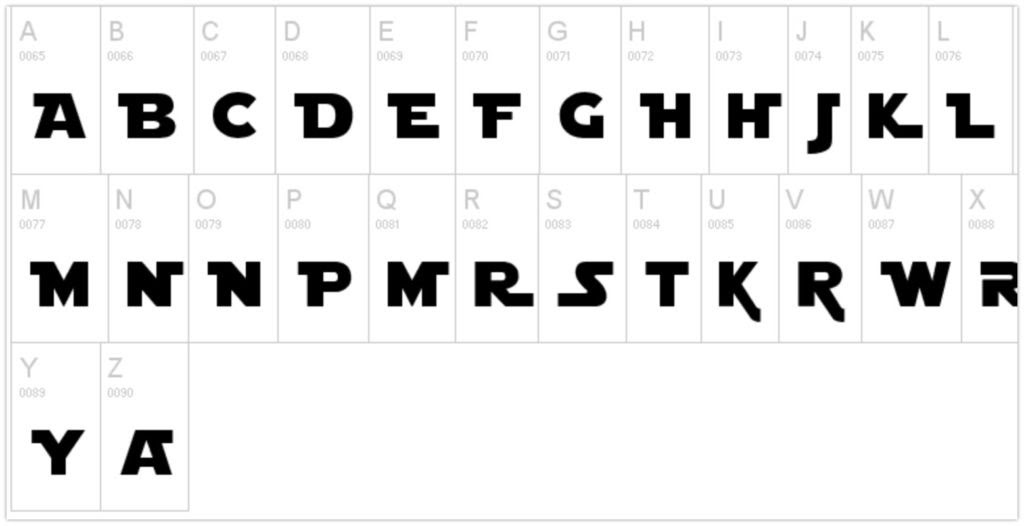
This font is designed by boba fonts. The font is licensed as free.
Star wars fonts and letters.
What font is used in star wars. Others have been created for star wars fans, and there are different styles you can choose from. Star jedi font | dafont.com. Textcraft is a free online text and logo maker, and is also compatible with ipad and android tablets.
You can find versions of star wars themed fonts Simply download it from the link below. The free star wars font is called “star jedi” and was created by boba fonts, run by davide canavero based in.
Please, take a look at the charset tables and the samples below for details. This is an alpha version pending metrics editing becoming possible on fontstruct. The force awakens logo is itc serif gothic heavy, which is a display serif font designed by antonio dispigna & herb lubalin and published by itc.
Star wars is an epic space film series created by george lucas. The font used for star wars: The star wars logo lettering is very similar to a font named star jedi created by boba fonts and you can download it for free here.
Star jedi is a titling (capitals only) font, with a lot of variations and connections. The force awakens and star wars: The star jedi font was designed in a way that the lowercase looks like the uppercase letters, and the uppercase letters are ligature variants instead of regular letters.
The subtitle font appears to be franklin gothic demi condensed, bold, 56 pt, color #e0e7d3 (rgb triplet; Itc serif gothic heavy font on myfonts.com. Rebel agent pda classic is a fontstrut truetype version of a bitmap font peter klassen extracted from briefing screens of the game star wars:
The main problem was my movie format. What font was used in star wars logo and posters? These star wars logo fonts are based upon the official star wars logo typeface.
A logo shortcut, use the @ symbol in star jedi or star jedi hollow to insert the logo in one swipe of your light sabre. Although the original lettering was drawn by hand, later movies switched to digital versions, and the closest font match is franklin demi. Now it's probably good enough to stick with my apple chancery font after all, although i did increase the size of.
Do not miss the best fonts for one of the great classics, star wars. Types of star wars font. Photo (s) by bart solenthaler on flickr.
All six films from the lucas era use the gothic/univers font. Original star wars logo designed by suzy rice. Joe johnson later modified it to the more modern star wars logo we recognize now.
Itc serif gothic heavy font on fonts.com. The free star wars font is called “star jedi” and was created by boba fonts, run by davide canavero. The original star wars font crawl is known as franklin gothic but has become known as 'univers'.
The actual title logo that appears in the film was designed by suzy rice. Assorted star wars fonts that you can download and use for your projects. The font used for star wars:
Let the fonts accompany you! Star jedi is the font used in the movie star wars. All six films from the lucas era use the gothic/univers font.
Now that every star wars movie starts with a famous line says ‘a long time ago in a galaxy far, far away…’ in a purple or cool blue font color. While the star wars logo is an iconic design, the famous yellow opening crawl is equally as recognizable as an iconic font. Directors have tweaked and polished the styles over the years, much to the chagrin of fans.